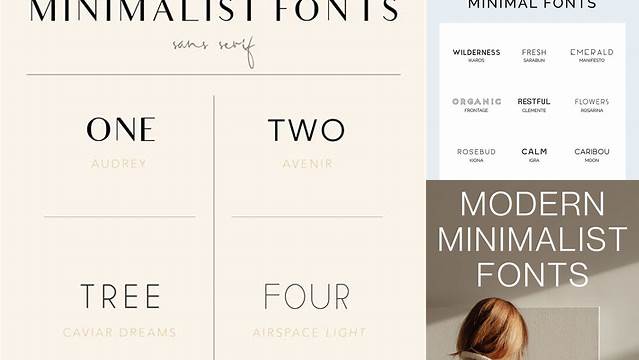
Minimalist Fonts: Your Guide To Dafont's Best
Hey guys! Are you on the hunt for the perfect minimalist font to give your project that clean, modern look? Well, you've come to the right place! Today, we're diving deep into the world of minimalist fonts, specifically focusing on the awesome selection available on Dafont. Whether you're a seasoned designer or just starting out, finding the right font can make a huge difference. We'll explore everything from what makes a font truly minimalist to how to choose the best one for your needs, and of course, we'll highlight some of Dafont's hidden gems. So, buckle up and let's get started on this font-tastic journey!
1. Understanding Minimalist Font Aesthetics
When we talk about minimalist fonts, we're really talking about a design philosophy that emphasizes simplicity and clarity. These fonts strip away unnecessary ornamentation, focusing on the essential forms of the letters themselves. Think clean lines, geometric shapes, and a sense of openness. Minimalist fonts often have a modern feel, making them ideal for projects that aim to convey sophistication and elegance. But what exactly are the key characteristics that define a minimalist font? It's more than just being simple; it's about a deliberate reduction to the core elements. Minimalist design, in general, aims to convey a message without clutter, and fonts are no different. The goal is to create a typeface that's both functional and aesthetically pleasing, without drawing unnecessary attention to itself. This often means using consistent stroke weights, avoiding overly decorative serifs (or having no serifs at all), and ensuring ample whitespace within and around the characters. This simplicity allows the content to shine, rather than the font itself. In essence, a minimalist font is a quiet workhorse, doing its job effectively without being flashy. It's the foundation upon which great design can be built. These fonts are incredibly versatile and can be used in a wide range of applications, from website headers to body text in print materials. They are particularly effective in projects that need to feel professional and uncluttered. Understanding these core aesthetics is the first step in choosing the right minimalist font for your project.
2. Top 10 Minimalist Sans-Serif Fonts on Dafont
Alright, let's get into the good stuff! Dafont is a treasure trove of fonts, but finding the perfect minimalist sans-serif can feel like searching for a needle in a haystack. So, we've curated a list of the top 10 minimalist sans-serif fonts you can find on Dafont. These fonts are all about clean lines, readability, and versatility, making them perfect for a wide range of projects. We'll cover everything from their unique characteristics to the types of projects they're best suited for. So, without further ado, let's dive in! Remember, the best font for your project depends on your specific needs and aesthetic preferences, but these options are a great starting point. We've tried to include a variety of styles within the minimalist sans-serif category, so you're sure to find something that resonates with you. Each of these fonts has its own personality and can bring a different feel to your design. The key is to experiment and see what works best for you. Don't be afraid to try different combinations and see how they interact with your other design elements. After all, typography is an art, and like any art form, it's all about experimentation and finding your own unique voice. So, get ready to explore some amazing minimalist sans-serif fonts and take your designs to the next level!
3. Exploring Minimalist Serif Font Options on Dafont
While sans-serif fonts often dominate the minimalist scene, don't count out the power of a minimalist serif font! Serif fonts, with their small decorative strokes at the ends of the letters, can bring a touch of elegance and tradition to a design while still maintaining a clean and modern feel. Finding the right minimalist serif font on Dafont can be a game-changer for projects that need a subtle hint of sophistication. The key here is to look for serifs that are understated and not overly ornate. Think clean, sharp serifs that complement the overall simplicity of the font. A minimalist serif font can add a sense of authority and trustworthiness to your design, making it a great choice for projects that need to convey a sense of professionalism. They can also work beautifully in body text, providing excellent readability while maintaining a refined aesthetic. When choosing a minimalist serif font, pay attention to the spacing between letters and the overall weight of the font. You want something that feels balanced and easy on the eyes. Overly heavy or tightly spaced serifs can detract from the minimalist aesthetic and make the text harder to read. So, take your time and explore the options available on Dafont. You might be surprised at the elegant and versatile minimalist serif fonts you can discover. They can be the perfect way to add a touch of class to your minimalist designs.
4. Minimalist Fonts for Logo Design
When it comes to logo design, the font you choose can make or break your brand identity. A minimalist font can be an excellent choice for logos that aim to convey simplicity, modernity, and sophistication. But what makes a minimalist font ideal for logo design, and how do you choose the right one? Well, a logo needs to be versatile and memorable, and a minimalist font can provide a strong foundation for both. The clean lines and uncluttered forms of minimalist fonts ensure that your logo will look crisp and clear across various sizes and applications, from business cards to websites. Furthermore, the simplicity of a minimalist font allows the other elements of your logo, such as your icon or color palette, to shine. It creates a harmonious balance that helps your brand message stand out. When selecting a minimalist font for your logo, consider your target audience and the overall brand personality you want to project. A slightly bolder font might convey strength and confidence, while a lighter font could suggest elegance and sophistication. It's also important to ensure that the font is legible and scalable. Your logo needs to look just as good on a small phone screen as it does on a large banner. So, take your time, experiment with different options, and choose a minimalist font that truly represents your brand.
5. Best Minimalist Fonts for Web Design
In the world of web design, readability is king. And when it comes to readability, minimalist fonts are a fantastic choice. The clean lines and clear forms of these fonts make them easy on the eyes, ensuring that your website visitors can effortlessly consume your content. But with so many fonts out there, how do you choose the best minimalist fonts for your web design project? First and foremost, consider the overall aesthetic of your website. Do you want a modern and sleek look? Or something more classic and understated? Minimalist fonts can fit both styles, but you'll need to choose the right one. Sans-serif fonts are generally a safe bet for web design, as they tend to render well on screens. Look for fonts with good letter spacing and clear distinctions between characters. You also want to consider the font's weight and style options. Does it offer different weights for headings and body text? Does it have italics for emphasis? These variations can add visual interest to your design while maintaining a minimalist feel. Furthermore, think about how the font will pair with other design elements on your website, such as your logo, images, and color palette. The goal is to create a cohesive and harmonious visual experience for your users. So, take your time, experiment with different minimalist fonts, and find the ones that best represent your brand and enhance the readability of your website.
6. Minimalist Fonts for Print Materials
While minimalist fonts are often associated with digital design, they can also work wonders in print materials. The clean and uncluttered aesthetic of these fonts can bring a sense of sophistication and professionalism to everything from business cards to brochures. But what makes a minimalist font effective in print, and how do you choose the right one for your project? One key factor is readability. In print, you want a font that's clear and easy to read, even at smaller sizes. Minimalist fonts excel in this area, as their simple forms and ample spacing between letters ensure optimal legibility. Consider the type of print material you're designing. For formal documents like resumes or cover letters, a minimalist serif font might be a good choice, as it can convey a sense of authority and trustworthiness. For marketing materials like brochures or flyers, a minimalist sans-serif font can create a more modern and approachable feel. When selecting a minimalist font for print, it's also important to consider the paper stock and printing method. Some fonts may not render well on certain types of paper, or with certain printing techniques. It's always a good idea to test your font choices on a sample print before committing to a large print run. By carefully considering these factors, you can choose a minimalist font that elevates your print materials and makes a lasting impression.
7. Pairing Minimalist Fonts Effectively
Choosing the right minimalist font is only half the battle. To truly create a visually appealing design, you need to know how to pair fonts effectively. The art of font pairing involves combining different typefaces in a way that is both harmonious and visually interesting. So, how do you pair minimalist fonts like a pro? One classic approach is to combine a minimalist sans-serif font with a minimalist serif font. This creates a subtle contrast that can add depth and personality to your design. For example, you might use a clean sans-serif font for headings and a slightly more elegant serif font for body text. Another effective strategy is to pair different weights of the same font family. Using a bold weight for headings and a regular weight for body text can create a clear visual hierarchy while maintaining a cohesive look. When pairing minimalist fonts, it's important to consider the overall tone and style of your design. Do you want a modern and edgy feel? Or something more classic and refined? Your font pairings should reflect this aesthetic. Also, pay attention to the spacing between letters and the overall balance of the text. You want to ensure that the fonts work well together and don't clash or compete for attention. With a little practice and experimentation, you can master the art of font pairing and create stunning designs with minimalist fonts.
8. Minimalist Fonts and Readability
As we've touched on before, readability is a huge factor when choosing a font, especially for projects with a lot of text. Minimalist fonts, with their clean lines and uncluttered forms, are often a great choice for ensuring optimal readability. But what exactly makes a minimalist font easy to read, and how can you maximize readability in your designs? One key factor is the letter spacing. Minimalist fonts typically have generous letter spacing, which allows the eye to easily distinguish between characters. This is especially important for body text, where readers will be spending a significant amount of time. The weight of the font also plays a role. A font that's too light can be difficult to read, while a font that's too heavy can feel overwhelming. Look for a minimalist font with a balanced weight that feels comfortable on the eyes. The x-height, which is the height of the lowercase letters, is another important consideration. Minimalist fonts with a larger x-height tend to be more readable, as the lowercase letters are more prominent and easier to recognize. In addition to choosing the right font, you can also improve readability by paying attention to factors like line height, line length, and contrast. Ensure that your text has enough whitespace around it, and that there's sufficient contrast between the text and the background. By considering these factors, you can create designs with minimalist fonts that are both visually appealing and highly readable.
9. The Psychology of Minimalist Fonts
Fonts, like colors and images, can evoke emotions and convey messages beyond the words they form. Minimalist fonts, in particular, have a unique psychological impact. Their simplicity and clarity can create a sense of calm, sophistication, and modernity. But how does the psychology of minimalist fonts work, and how can you use this knowledge to your advantage in your designs? Minimalist fonts often convey a sense of trustworthiness and professionalism. Their clean lines and lack of ornamentation suggest a straightforward and honest approach. This makes them a great choice for brands that want to project credibility and reliability. The simplicity of minimalist fonts can also create a feeling of openness and space. This can be particularly effective in web design, where a clean and uncluttered layout can enhance the user experience. Minimalist fonts are often associated with modern and contemporary design. Their sleek and streamlined forms align with the minimalist aesthetic that's popular in many industries, from technology to fashion. When choosing a minimalist font for your project, consider the emotions and messages you want to convey. Do you want to project trustworthiness? Modernity? Simplicity? The right minimalist font can help you achieve your goals. Also, think about your target audience and the brand personality you want to create. By understanding the psychology of minimalist fonts, you can make informed design decisions that resonate with your audience and strengthen your brand message.
10. Minimalist Fonts and Brand Identity
Your brand identity is the visual representation of your brand's personality and values, and typography plays a crucial role in shaping that identity. A minimalist font can be a powerful tool for creating a strong and consistent brand image. But how do you choose the right minimalist font for your brand identity, and how can you use it effectively across different platforms? First, consider your brand's core values and target audience. What kind of message do you want to convey? Do you want to project sophistication and elegance? Or a more modern and approachable feel? Your font choice should align with these values and resonate with your target audience. Minimalist fonts are often a great choice for brands that want to convey simplicity, clarity, and professionalism. Their clean lines and uncluttered forms can create a sense of trustworthiness and modernity. When selecting a minimalist font for your brand identity, it's important to choose a font that's versatile and scalable. Your logo and other brand materials will need to look good across various sizes and applications, from business cards to websites to billboards. Also, consider the font's legibility and readability. Your brand font should be easy to read in both print and digital formats. Once you've chosen a minimalist font for your brand identity, it's important to use it consistently across all your brand materials. This will help create a cohesive and recognizable brand image. By carefully considering these factors, you can choose a minimalist font that strengthens your brand identity and helps you connect with your target audience.
11. Free vs. Premium Minimalist Fonts on Dafont
Dafont is a fantastic resource for finding fonts, but it offers both free and premium options. So, when it comes to minimalist fonts, should you opt for a freebie or invest in a premium typeface? Both free and premium minimalist fonts have their pros and cons. Free minimalist fonts can be a great option if you're on a tight budget or just starting out. Dafont has a vast selection of free fonts, and you can often find high-quality minimalist options among them. However, it's important to be aware of the licensing terms for free fonts. Some fonts may only be free for personal use, while others can be used for commercial projects. Always check the license before using a free font in a commercial design. Premium minimalist fonts, on the other hand, typically offer more features and better quality. They often come with a wider range of weights and styles, as well as better kerning and character design. Premium fonts also usually have more comprehensive licensing terms, allowing you to use them for a wider range of projects. Investing in a premium minimalist font can be a worthwhile expense if you're serious about your design work. A high-quality typeface can elevate your designs and make them look more professional. Ultimately, the choice between free and premium minimalist fonts depends on your budget, your project needs, and your design goals. Consider the pros and cons of each option and choose the one that's right for you.
12. Minimalist Fonts for Headlines and Titles
Headlines and titles are the first thing people see, so choosing the right font is essential. Minimalist fonts can be a fantastic choice for headlines and titles, as their clean lines and clear forms can grab attention without being overwhelming. But what makes a minimalist font effective for headlines, and how do you choose the right one for your project? One key factor is weight. Headlines need to stand out, so a bolder minimalist font is often a good choice. A heavier weight will draw the eye and create a strong visual impact. However, it's important to balance boldness with readability. You want a font that's attention-grabbing but still easy to read at a glance. The size of the font is also crucial. Headlines should be larger than body text, but not so large that they feel overwhelming. Experiment with different sizes to find the right balance. The spacing between letters and lines is another important consideration. Too little spacing can make headlines feel cramped and difficult to read, while too much spacing can make them feel disjointed. Minimalist fonts typically have generous spacing, which can help improve readability. When choosing a minimalist font for headlines, consider the overall tone and style of your design. Do you want a modern and edgy feel? Or something more classic and refined? Your font choice should reflect this aesthetic. By carefully considering these factors, you can choose a minimalist font that makes your headlines and titles stand out and effectively convey your message.
13. Minimalist Fonts for Body Text
While headlines grab attention, body text does the heavy lifting of conveying your message. Choosing a readable font for body text is crucial, and minimalist fonts can be an excellent choice. Their clean lines and clear forms ensure that your readers can easily consume your content. But what makes a minimalist font effective for body text, and how do you choose the right one for your project? Readability is the top priority for body text fonts. Look for minimalist fonts with good letter spacing, a comfortable x-height (the height of lowercase letters), and clear distinctions between characters. You want a font that's easy on the eyes, even when reading long passages of text. The weight of the font is also important. A font that's too light can be difficult to read, while a font that's too heavy can feel overwhelming. Choose a minimalist font with a balanced weight that feels comfortable for extended reading. The style of the font is another factor to consider. While sans-serif fonts are often a safe bet for body text, some minimalist serif fonts can also work well, especially for longer texts or more formal designs. When choosing a minimalist font for body text, it's important to consider the line height and line length. Ensure that your text has enough whitespace around it to prevent eye strain. Also, avoid lines that are too long, as they can be difficult to read. By carefully considering these factors, you can choose a minimalist font that makes your body text clear, engaging, and enjoyable to read.
14. Minimalist Fonts and Accessibility
Accessibility in design means ensuring that your content is usable by everyone, including people with disabilities. When it comes to fonts, choosing an accessible typeface is crucial, and minimalist fonts can be a great option. Their clean lines and clear forms often make them easier to read for people with visual impairments or dyslexia. But what makes a minimalist font accessible, and how can you ensure that your designs are inclusive? One key factor is contrast. Ensure that there's sufficient contrast between the text and the background. White text on a black background or black text on a white background typically provides the best contrast. The size of the font is also important. Use a font size that's large enough to be easily read, even by people with low vision. Avoid using very small fonts, as they can be difficult to decipher. The spacing between letters and lines is another important consideration. Minimalist fonts typically have generous spacing, which can help improve readability for people with dyslexia. Also, consider the font's weight and style. Avoid using overly decorative or stylized fonts, as they can be difficult to read for some people. Stick to minimalist fonts with clear, simple forms. When in doubt, test your font choices with users who have disabilities to get feedback on their readability and accessibility. By prioritizing accessibility in your design process, you can create content that's inclusive and enjoyable for everyone.
15. Minimalist Fonts for Mobile Design
Mobile devices have smaller screens, so choosing the right font for mobile design is essential. Minimalist fonts are often a fantastic choice for mobile, as their clean lines and clear forms ensure readability even on small screens. But what makes a minimalist font effective for mobile, and how do you optimize your typography for mobile users? One key factor is readability. Look for minimalist fonts with good letter spacing, a comfortable x-height, and clear distinctions between characters. You want a font that's easy to read at a glance, even on a small screen. The size of the font is also important. Use a font size that's large enough to be easily read on a mobile device, but not so large that it feels overwhelming. Test your font choices on different devices to ensure they look good across various screen sizes. The weight of the font is another consideration. A font that's too light can be difficult to read on a mobile screen, especially in bright sunlight. Choose a minimalist font with a balanced weight that's visible in various lighting conditions. Also, consider the line height and line length. Ensure that your text has enough whitespace around it to prevent eye strain. Break up long paragraphs into shorter chunks to make them easier to read on a small screen. By optimizing your typography for mobile, you can create a better user experience and ensure that your content is easily accessible on the go.
16. Minimalist Fonts for Social Media Graphics
Social media is a visual medium, and your graphics need to grab attention quickly. Minimalist fonts can be a powerful tool for creating eye-catching social media graphics that convey your message effectively. Their clean lines and clear forms can help your text stand out without being overwhelming. But what makes a minimalist font effective for social media, and how do you choose the right one for your graphics? One key factor is readability. Social media users are often scrolling quickly, so your text needs to be easy to read at a glance. Look for minimalist fonts with good letter spacing, a comfortable x-height, and clear distinctions between characters. The size of the font is also important. Use a font size that's large enough to be easily read on a variety of devices, from smartphones to desktops. Test your font choices on different platforms to ensure they look good across various screen sizes. The weight of the font is another consideration. A bolder minimalist font can help your text stand out, but be careful not to use a weight that's too heavy, as it can feel overwhelming. Also, consider the overall tone and style of your social media graphics. Do you want a modern and edgy feel? Or something more classic and refined? Your font choice should reflect this aesthetic. When designing social media graphics, it's also important to consider the color palette and imagery. Choose minimalist fonts that complement your visuals and help create a cohesive and visually appealing design. By carefully considering these factors, you can choose a minimalist font that makes your social media graphics stand out and effectively communicate your message.
17. Using Minimalist Fonts in Presentations
Presentations need to be clear, concise, and visually engaging. Minimalist fonts can be a fantastic choice for presentations, as their clean lines and clear forms help ensure readability and prevent distractions. But what makes a minimalist font effective for presentations, and how do you choose the right one for your slides? One key factor is readability. Your audience needs to be able to read your slides quickly and easily, even from a distance. Look for minimalist fonts with good letter spacing, a comfortable x-height, and clear distinctions between characters. The size of the font is also important. Use a font size that's large enough to be easily read in a presentation setting, but not so large that it feels overwhelming. Test your font choices in a real presentation environment to ensure they're legible from the back of the room. The weight of the font is another consideration. A bolder minimalist font can help your headings and key points stand out, but be careful not to use a weight that's too heavy, as it can feel overwhelming. Also, consider the color palette and background of your slides. Choose minimalist fonts that provide sufficient contrast with the background to ensure readability. When designing presentations, it's important to limit the amount of text on each slide. Use minimalist fonts to create clear and concise headlines and bullet points that convey your message effectively. By carefully considering these factors, you can choose a minimalist font that makes your presentations visually appealing and easy to follow.
18. Minimalist Fonts and User Interface (UI) Design
In user interface (UI) design, clear communication is paramount. Minimalist fonts are often an excellent choice for UI design, as their clean lines and clear forms help ensure readability and a clean, uncluttered interface. But what makes a minimalist font effective for UI design, and how do you choose the right one for your application or website? Readability is the top priority for UI fonts. Users need to be able to read text quickly and easily, especially in interactive elements like buttons and menus. Look for minimalist fonts with good letter spacing, a comfortable x-height, and clear distinctions between characters. The size of the font is also important. Use a font size that's appropriate for the screen size and resolution of the device. Test your font choices on different devices to ensure they look good across various screen sizes. The weight of the font is another consideration. A minimalist font with a balanced weight is often the best choice for UI design, as it provides good readability without being overwhelming. Also, consider the overall style and tone of your user interface. Do you want a modern and sleek feel? Or something more classic and understated? Your font choice should reflect this aesthetic. When designing UIs, it's important to maintain consistency in your typography. Use the same minimalist font (or a limited number of fonts) throughout your interface to create a cohesive and professional look. By carefully considering these factors, you can choose a minimalist font that enhances the user experience and makes your UI clear, intuitive, and enjoyable to use.
19. Combining Minimalist Fonts with Other Design Elements
Choosing a great minimalist font is only the first step. To create truly stunning designs, you need to know how to combine your chosen font with other design elements, such as colors, images, and layout. So, how do you effectively integrate minimalist fonts into your overall design? One key principle is balance. Aim for a harmonious balance between your font and other visual elements. If you're using a bold minimalist font, for example, you might want to use a more subdued color palette and simple imagery to avoid overwhelming the viewer. On the other hand, if you're using a lighter minimalist font, you might have more leeway to experiment with bolder colors and more intricate visuals. Contrast is another important consideration. Ensure that there's sufficient contrast between your font and the background to ensure readability. White text on a black background or black text on a white background typically provides the best contrast. You can also use color to create contrast and highlight key elements. Consider the overall style and tone of your design. Your font choice should complement your other design elements and help create a cohesive visual message. If you're designing a modern website, for example, you might want to use a clean sans-serif minimalist font with a minimalist layout and a limited color palette. Finally, don't be afraid to experiment! Try different combinations of fonts, colors, and images to see what works best. The key is to have fun and let your creativity flow. By carefully considering these factors, you can combine minimalist fonts with other design elements to create visually stunning and effective designs.
20. The Future of Minimalist Fonts in Design
Design trends are constantly evolving, but the principles of simplicity and clarity often endure. Minimalist fonts have been a staple in design for years, and they're likely to remain a relevant choice for the foreseeable future. But what does the future hold for minimalist fonts in design? One trend we're likely to see is the continued popularity of geometric sans-serif fonts. These fonts, with their clean lines and geometric shapes, perfectly embody the minimalist aesthetic. They're versatile, readable, and convey a sense of modernity and sophistication. We may also see a resurgence of minimalist serif fonts. While sans-serif fonts have often dominated the minimalist scene, serif fonts can add a touch of elegance and tradition to a design while still maintaining a clean and uncluttered feel. The key is to choose a serif font with understated serifs that complement the overall simplicity of the font. Another trend to watch is the use of variable fonts. Variable fonts allow designers to adjust various font properties, such as weight, width, and slant, within a single font file. This can provide greater flexibility and control over typography, allowing designers to create more nuanced and personalized designs with minimalist fonts. Ultimately, the future of minimalist fonts in design is likely to be shaped by the ongoing quest for clarity, readability, and visual harmony. Minimalist fonts that can effectively convey a message without unnecessary ornamentation will continue to be in demand. By staying up-to-date with the latest trends and technologies, designers can leverage the power of minimalist fonts to create stunning and effective designs.